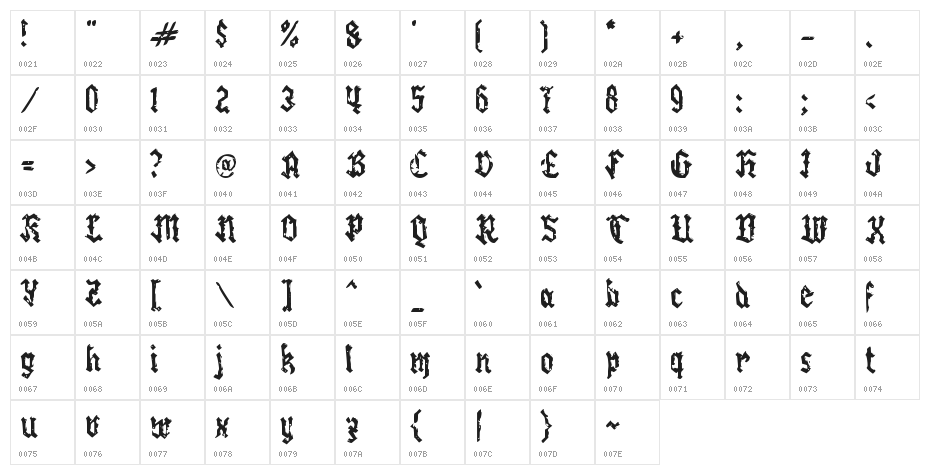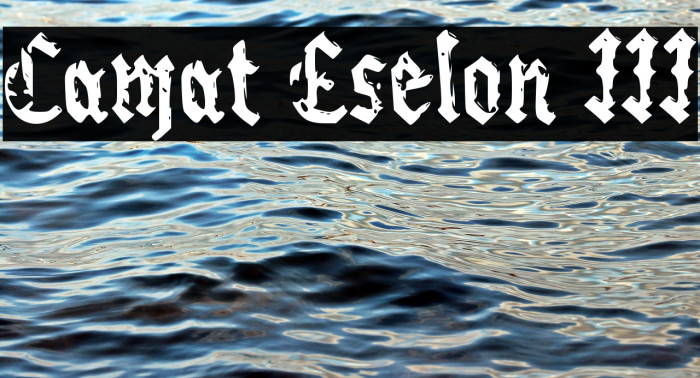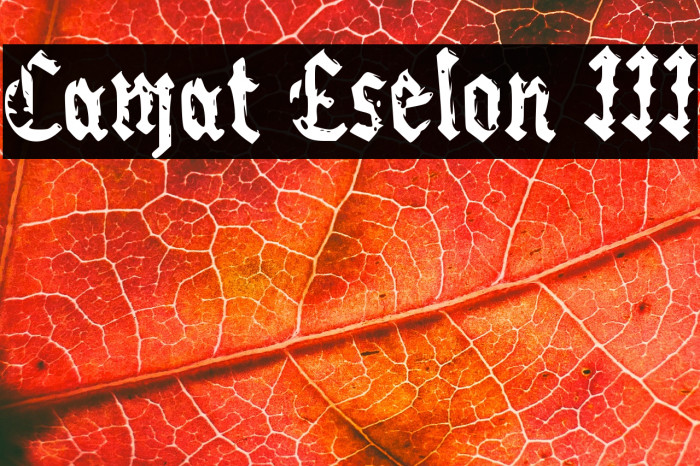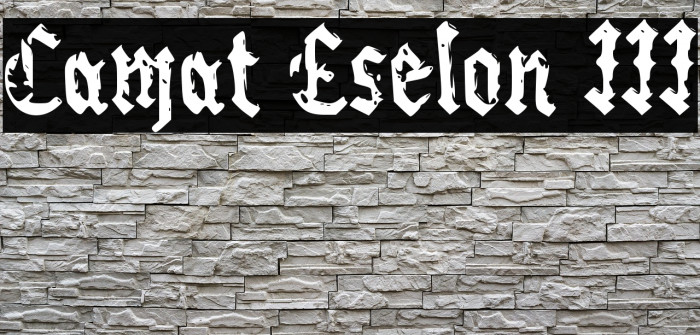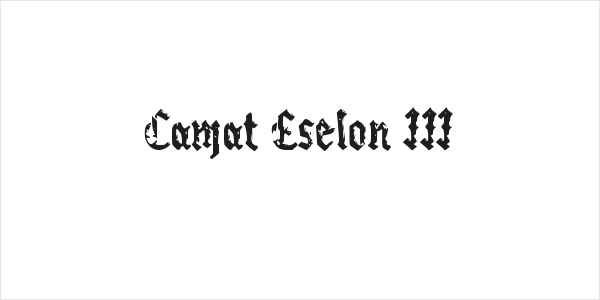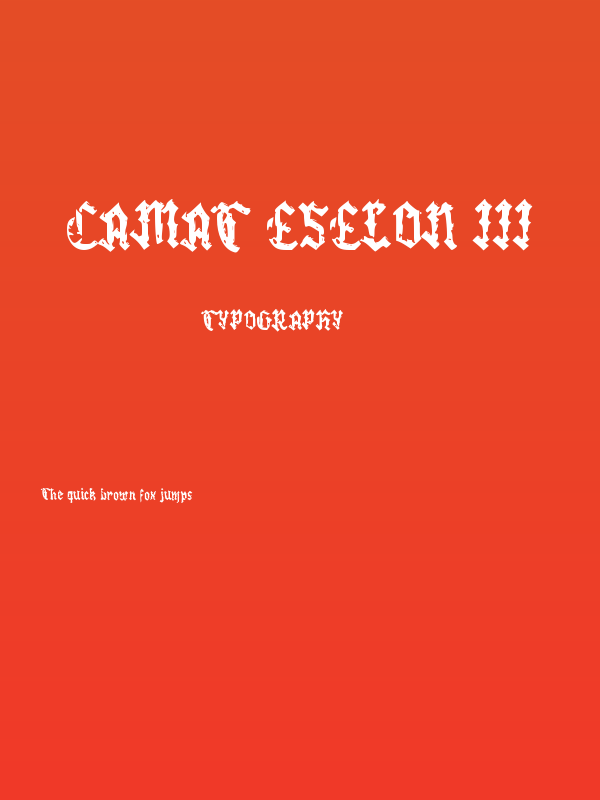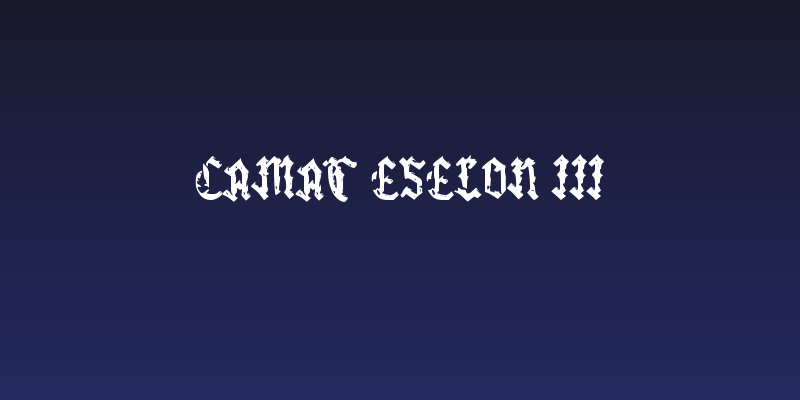
Camat Eselon III Font
Camat Eselon III Description
This font features a bold and dramatic blackletter style, reminiscent of traditional Gothic script. The characters are sharply angular with intricate detailing, creating a sense of historical elegance and authority. The uppercase letters are particularly ornate, with exaggerated serifs and flourishes that enhance their visual impact. The lowercase letters maintain the same intricate design, ensuring consistency throughout the typeface. Numbers and special characters are crafted with the same attention to detail, making them suitable for a variety of decorative purposes. This font's distinct style makes it ideal for projects that require a touch of medieval or vintage flair.
| Proposed Projects | Ideal for historical documents, vintage posters, book covers, and branding that requires a medieval or Gothic aesthetic. |